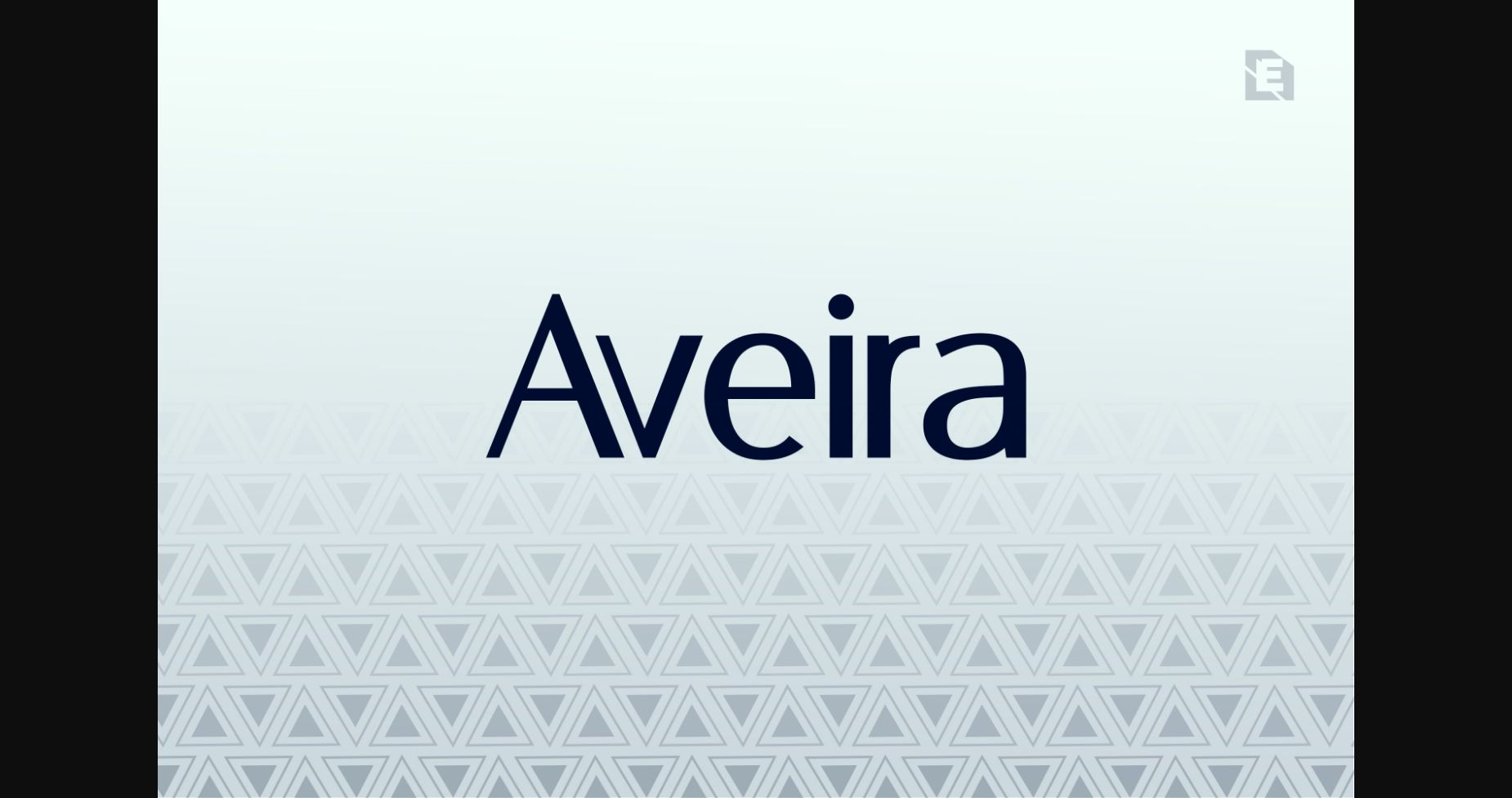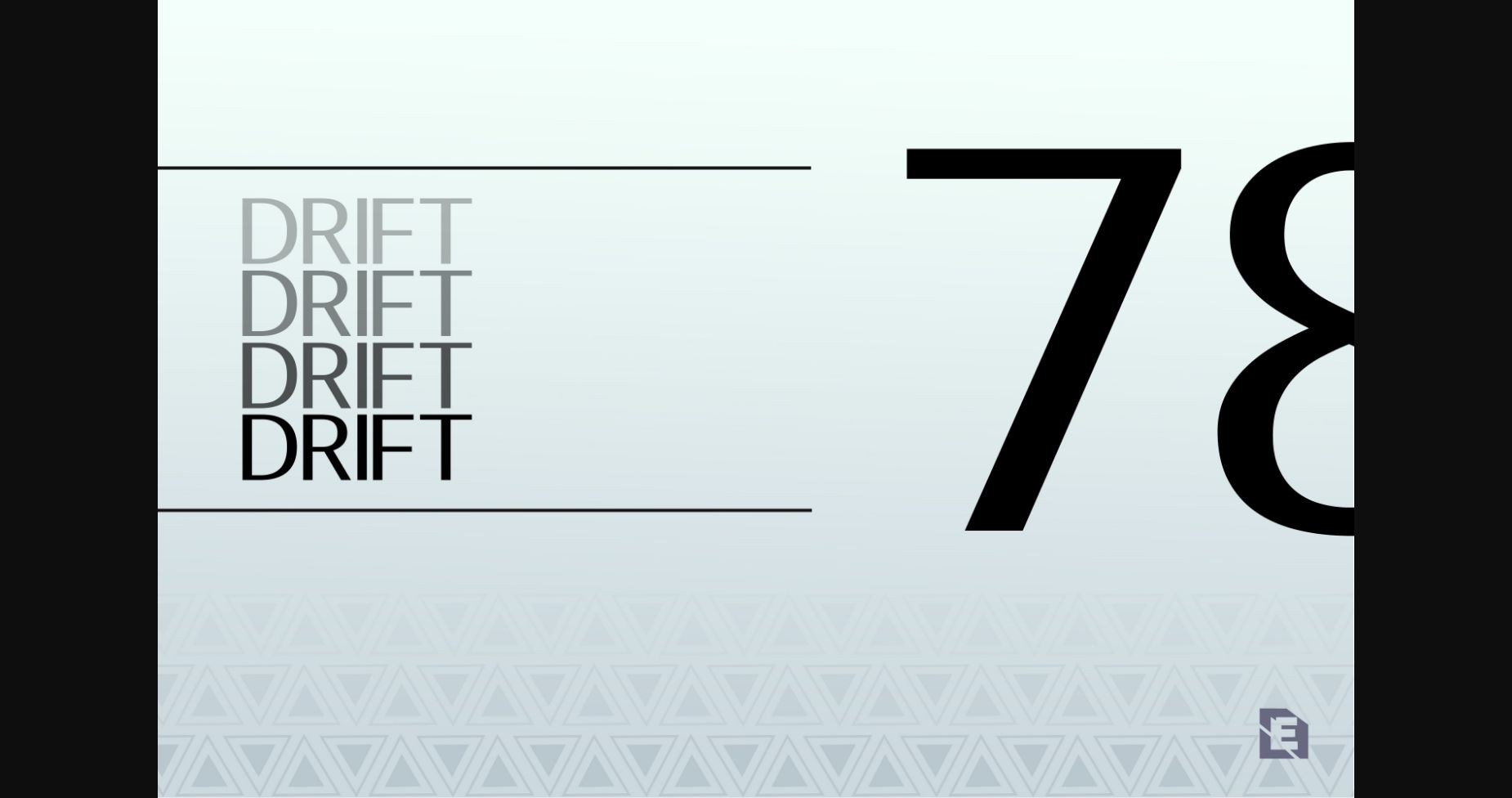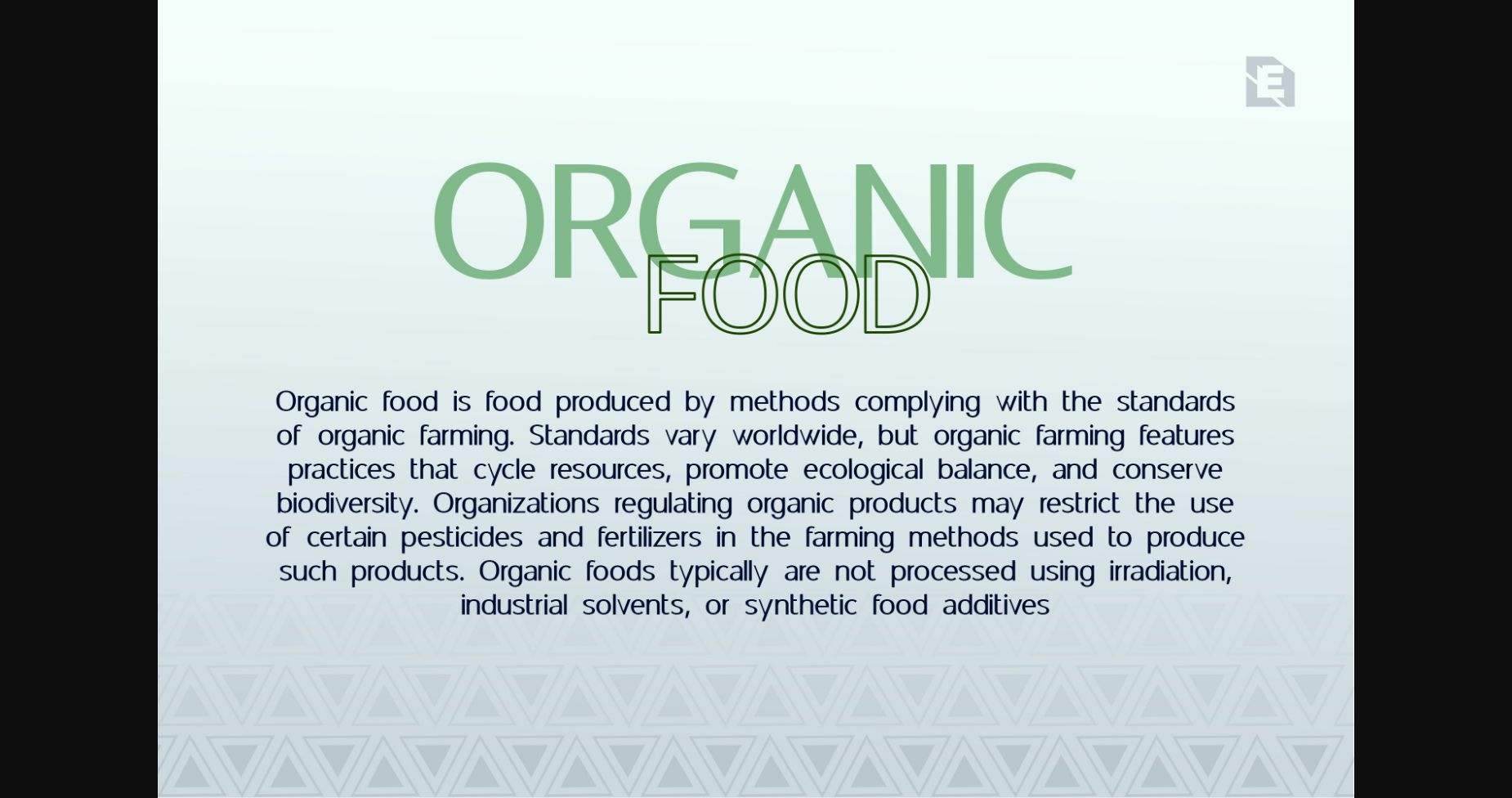
About Aveira Font
Aveira is a minimal and neat sans serif font. It can easily be matched to an incredibly large set of projects, so add it to your creative ideas and notice how it makes them stand out!